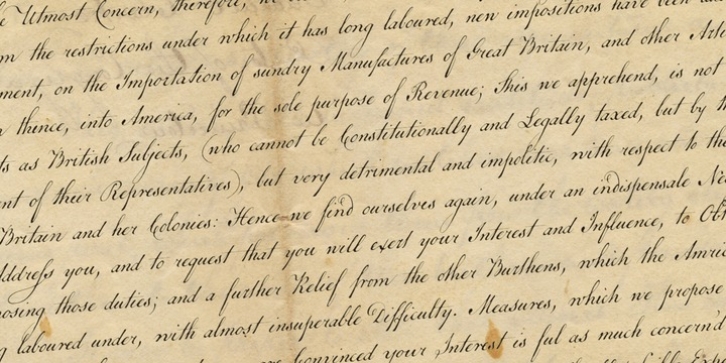
The 1765 Stamp Act ignited in American colonists a simmering distrust of the distant British Parliament, whose oppressive trade duties they deemed unfair assaults on their rights as English subjects. Before long, of course, this little dustup spawned The Boston Tea Party, the American Revolution, and the birth of the U. S. of A. But before the Battles of Lexington and Concord, a group of Philadelphia merchants made one last-ditch call for commercial cooperation across the Atlantic. This futile appeal survives to this day on a three-page broadside, finely engrossed by a penman of the period and passed down through the generations of a family named Remsen. Remsen Script is an interpretation of that penman’s neat, formal cursive—from its broad antique flourishes to its subtle unevenness and gently ragged strokes. Perfect for event announcements, fine product packaging, recreations of historical documents, or anywhere you wish to offer a whiff of a bygone era.